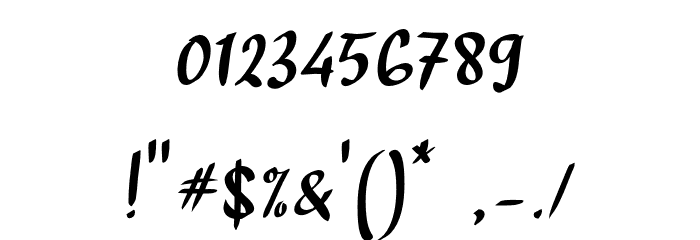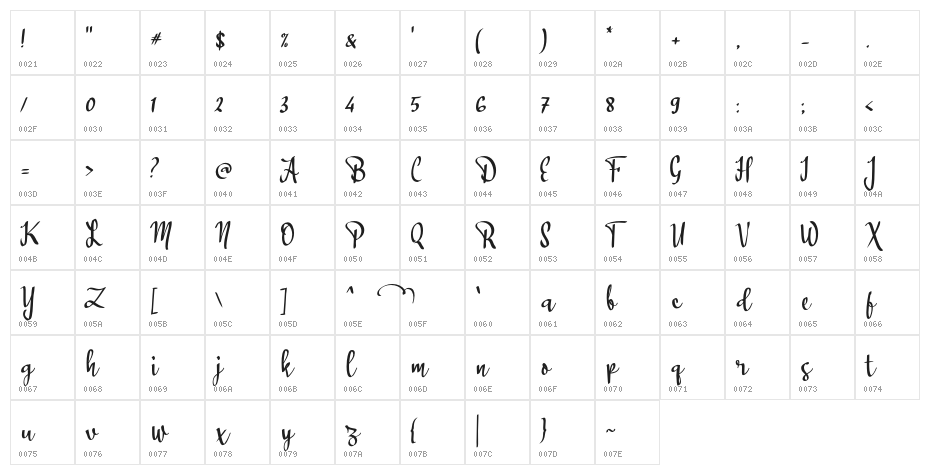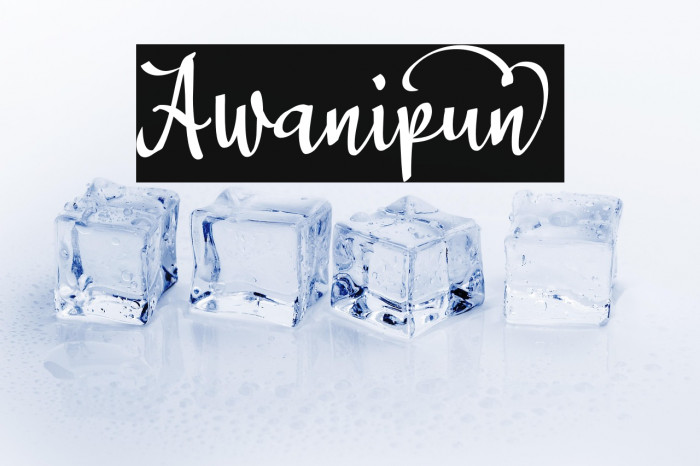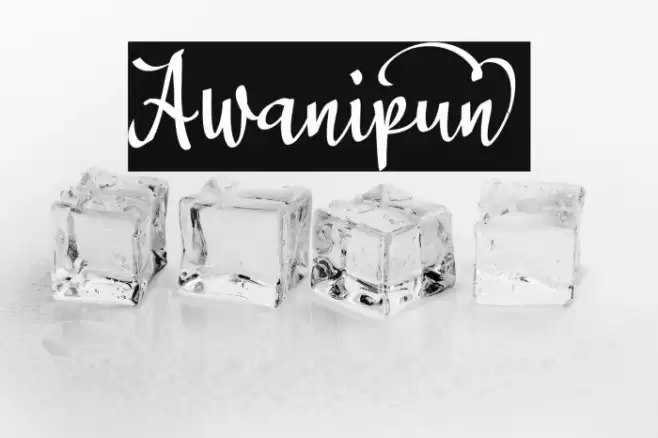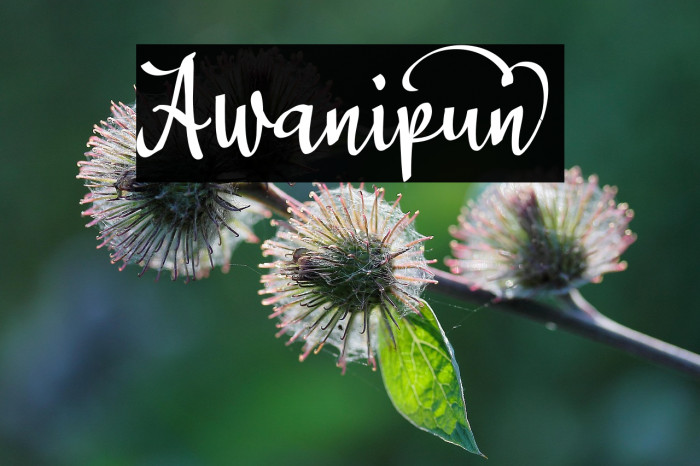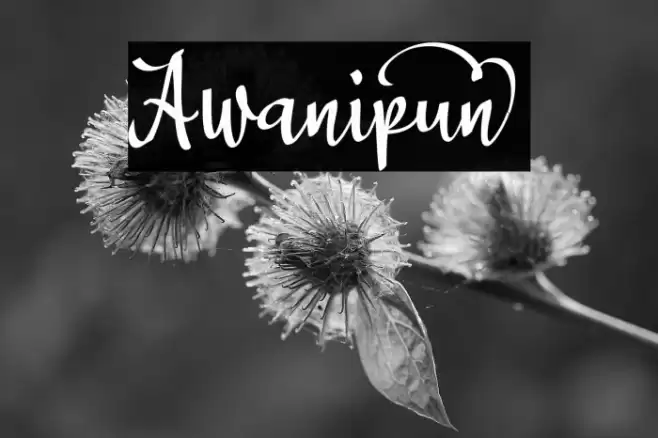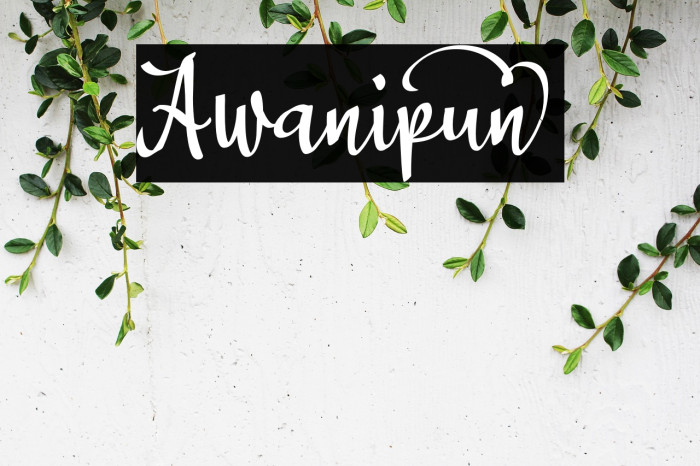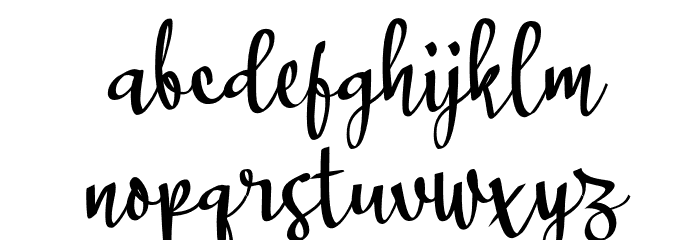
Awanipun_ Font
Awanipun_ Description
This font features a dynamic and flowing script style, characterized by its elegant and cursive letterforms. The uppercase letters are bold and expressive, with sweeping curves and a sense of movement, while the lowercase letters maintain a consistent fluidity and grace. The numerals and special characters complement the overall aesthetic, adding a touch of sophistication. The strokes are moderately thick, providing a medium contrast that enhances readability while maintaining an artistic flair. This font exudes a sense of creativity and elegance, making it suitable for a variety of design projects.
| Proposed Projects | Ideal for wedding invitations, branding, greeting cards, and artistic projects. |